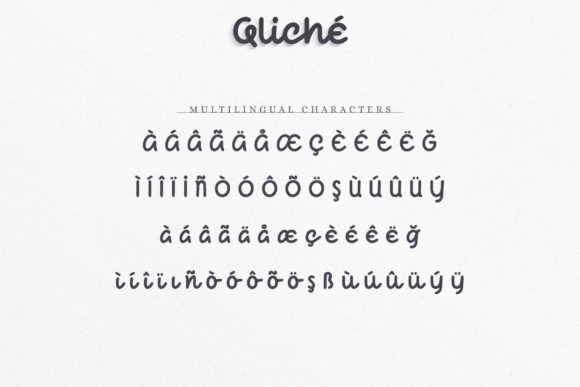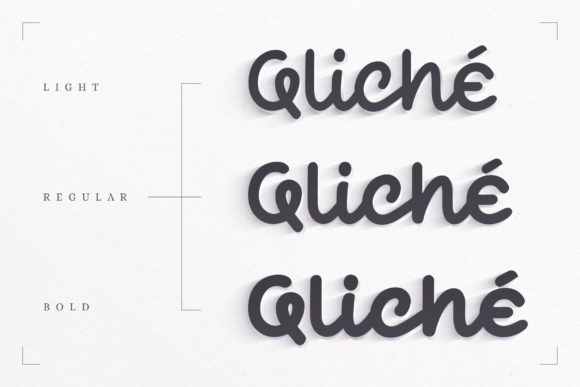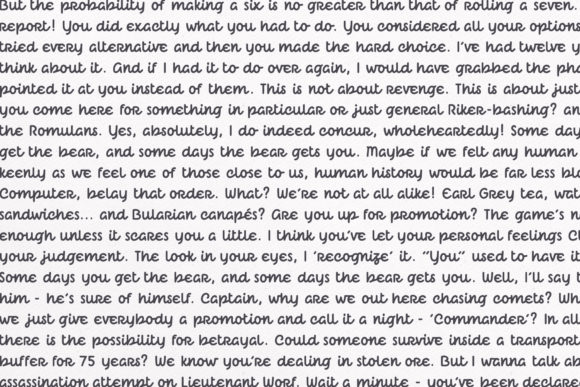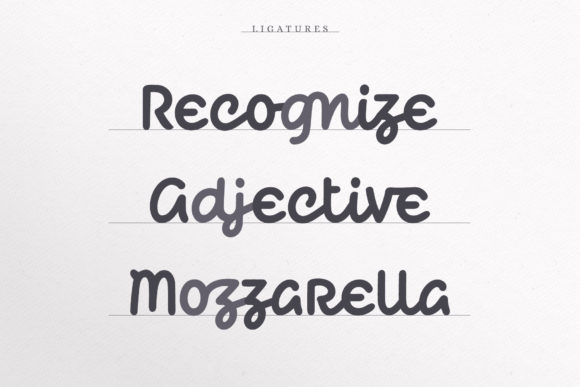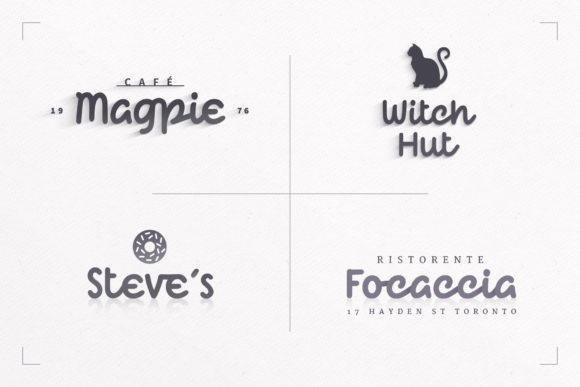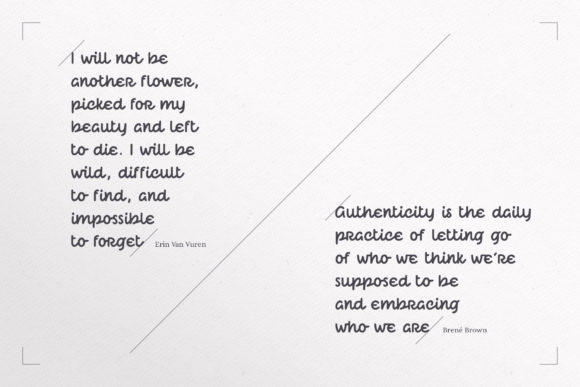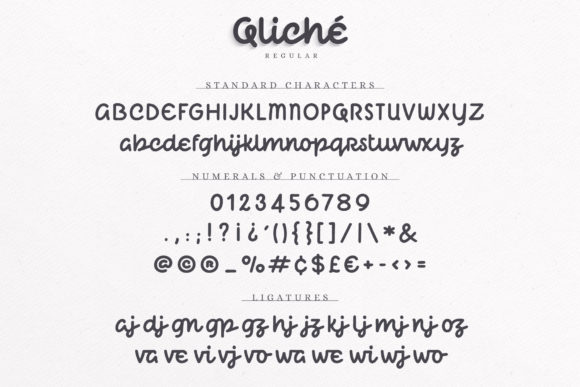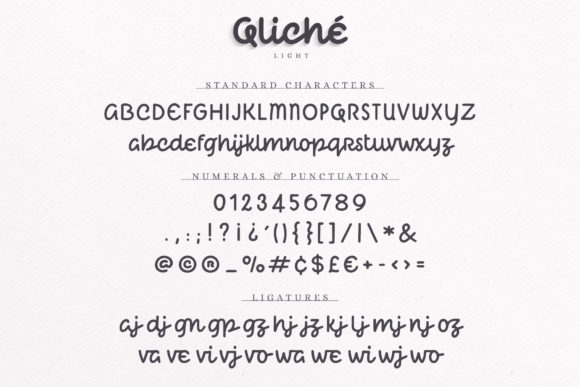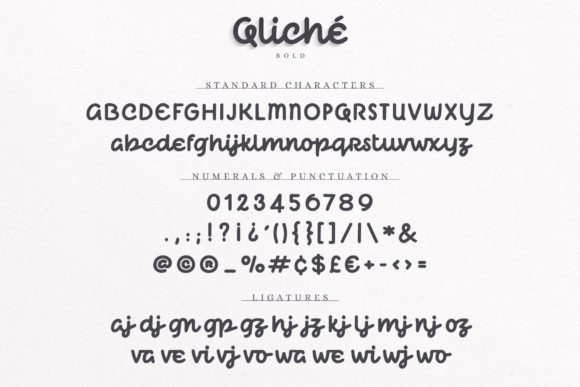
Qliché Font
About Qliché Font
The Qliché is a monoline script typeface that comes in 3 weights. It easily stands out from the crowd and works equally well in small sizes.
It’s unique look makes it excellent for logos, headlines, posters, etc.